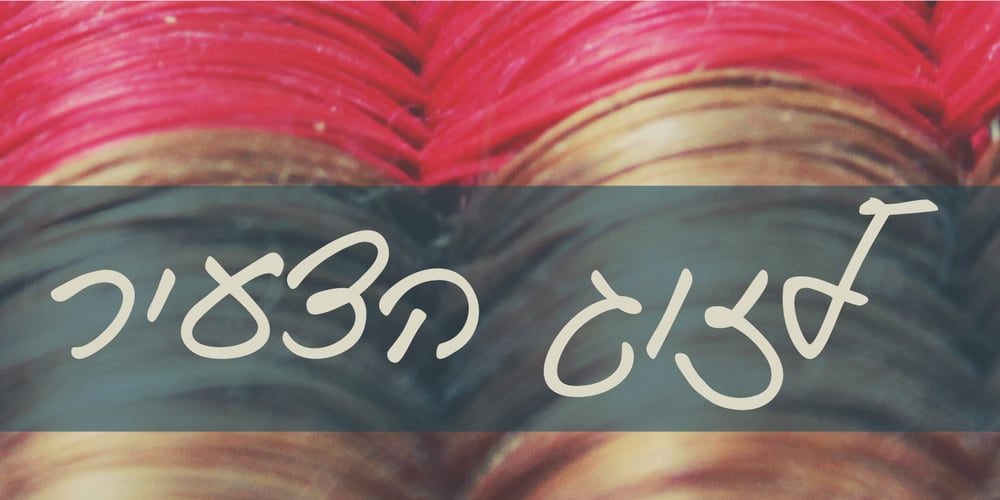
Victor Habaz MF Font Family was designed by Victor Habaz and published by Masterfont. Victor Habaz MF contains 2 styles and family package options. Hand drawn with ink and brush to obtain that unique rhythm and dynamic flow. Great for formal inviraions as well as personal documents.